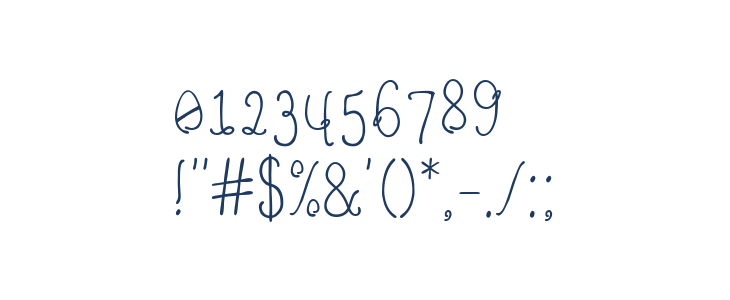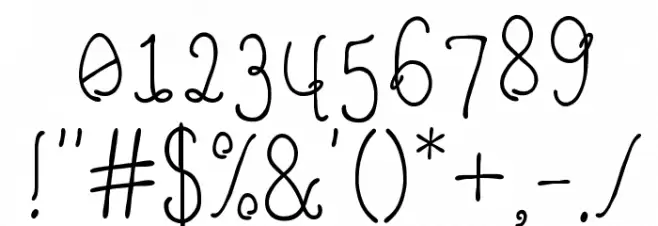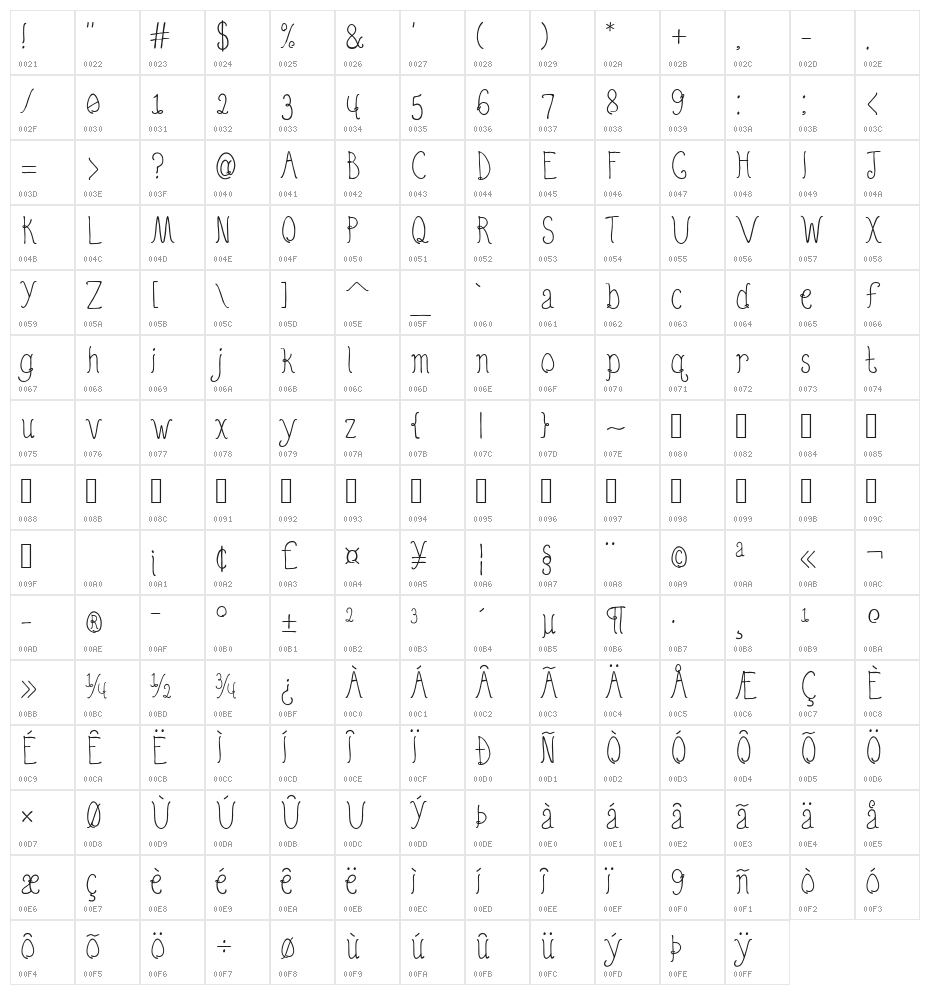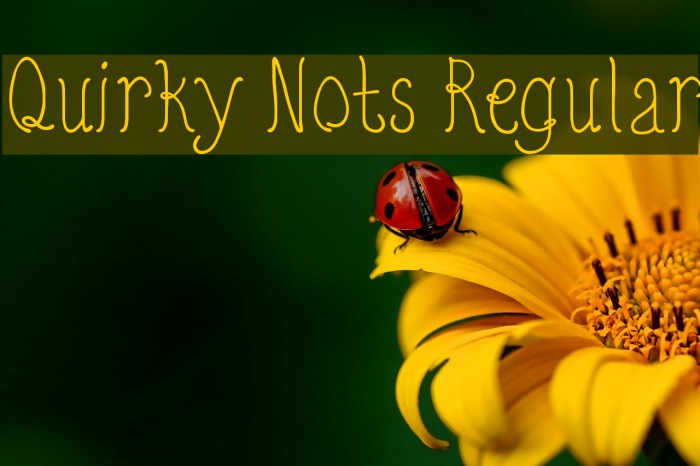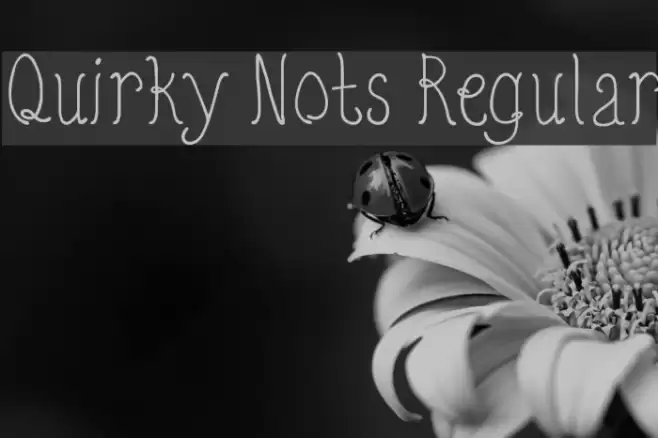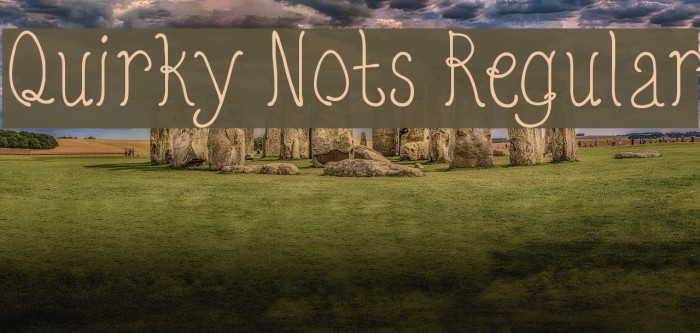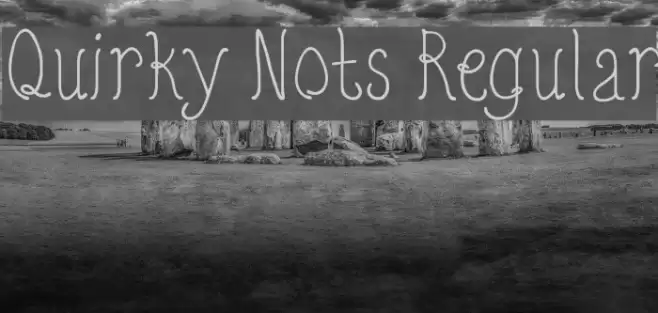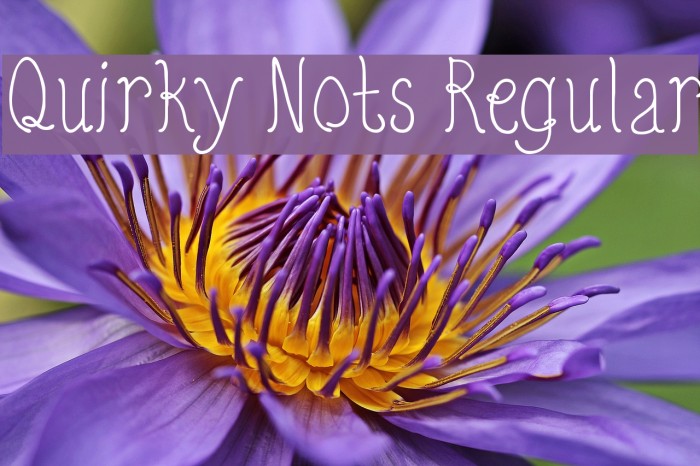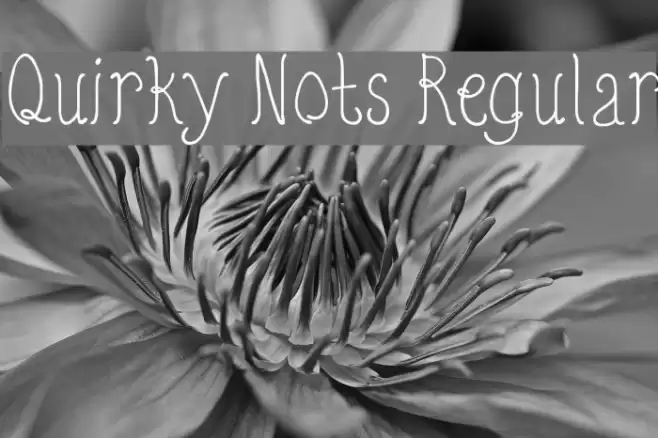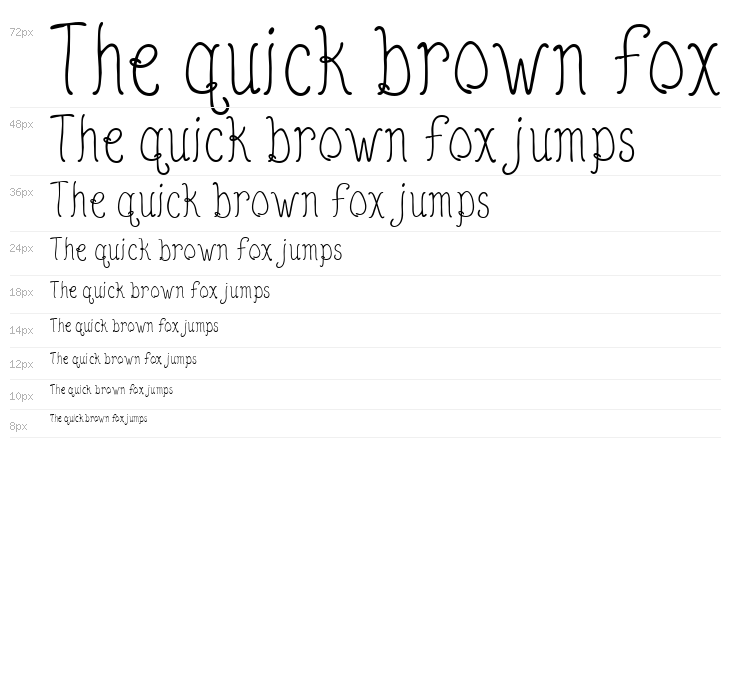
Quirky Nots Regular Font
Quirky Nots Regular Description
This font features a playful and whimsical design, characterized by its curly and looping strokes. The letters have a hand-drawn appearance, with uneven lines that add to its quirky charm. The uppercase letters are tall and narrow, while the lowercase letters maintain a consistent style with slight variations in height and width. The numbers and special characters follow the same playful theme, making the font suitable for creative and informal projects. Its unique style makes it stand out, adding a touch of fun and personality to any design.
| Overall Style | Whimsical |
| Proposed Projects | Ideal for children's books, greeting cards, playful branding, and creative posters. |